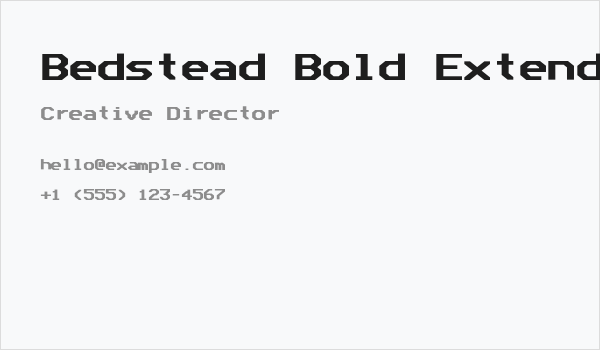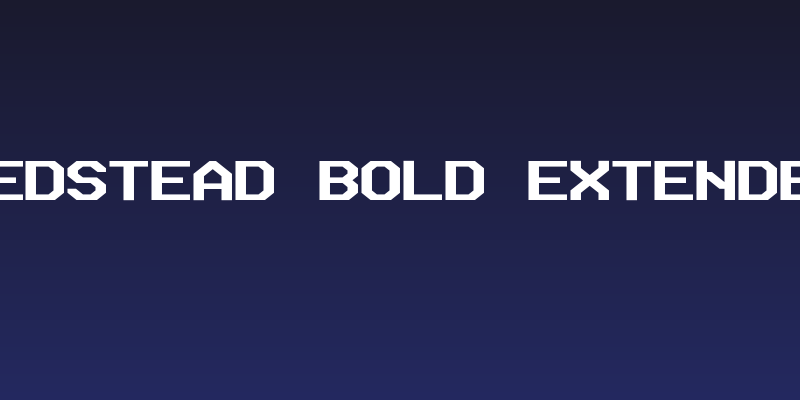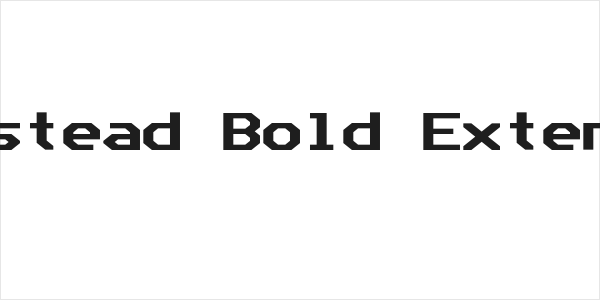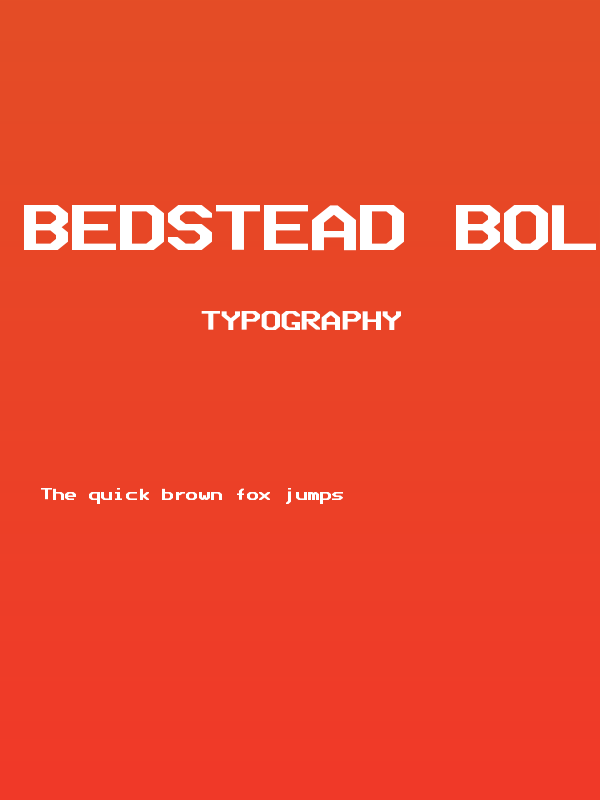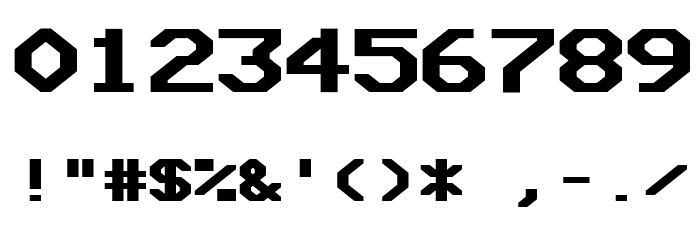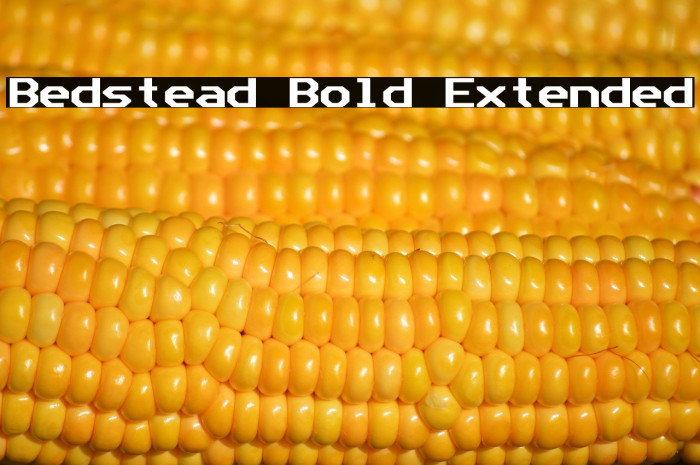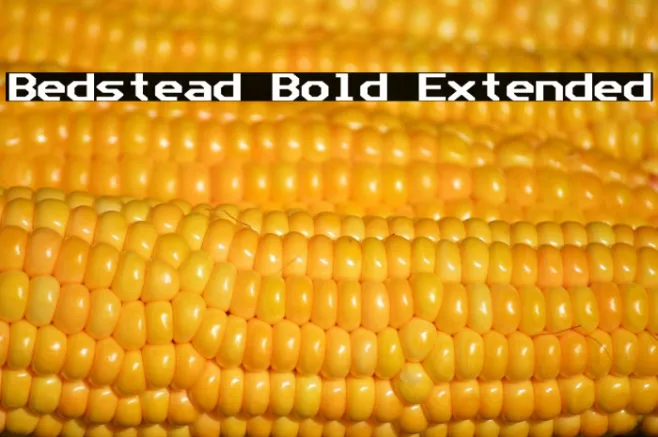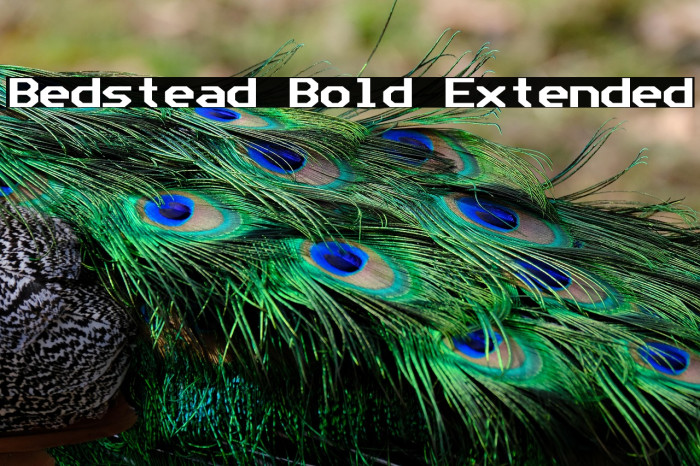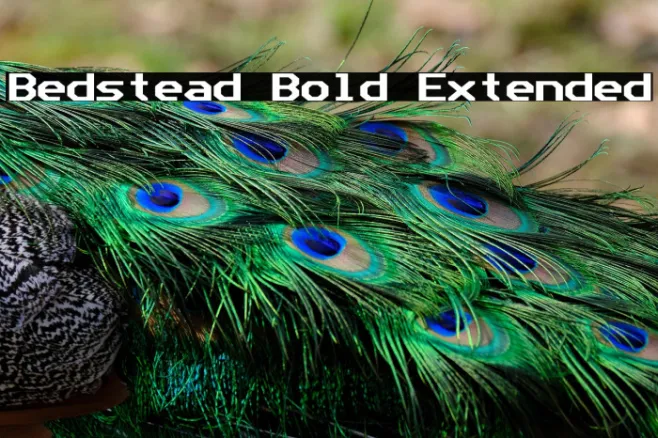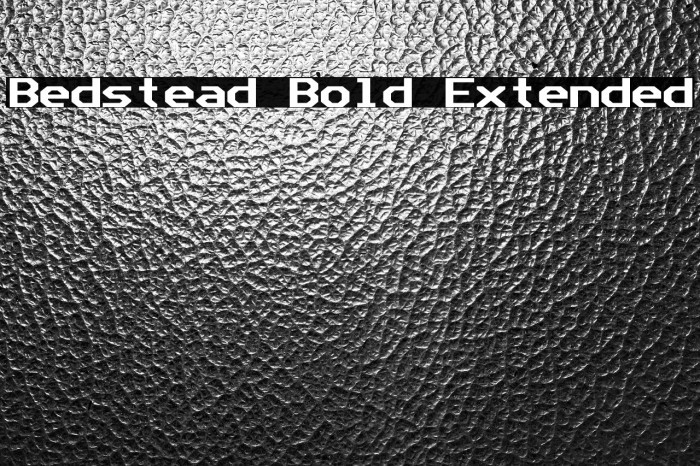
Bedstead Bold Extended Font
Bedstead Bold Extended Description
This font features a bold and extended style with a geometric and blocky appearance. The characters are uniformly structured, providing a sense of stability and strength. The uppercase and lowercase letters maintain a consistent width, enhancing readability and creating a cohesive look. The numerals and special characters follow the same robust design, making them easily distinguishable. The font's extended width gives it a unique presence, suitable for making impactful statements. Its clean lines and sharp angles contribute to a modern and industrial aesthetic, ideal for projects that require a bold and assertive typeface.
| Overall Style | Modern, Industrial |
| Proposed Projects | Ideal for headlines, posters, logos, and branding materials that require a strong and impactful typeface. |